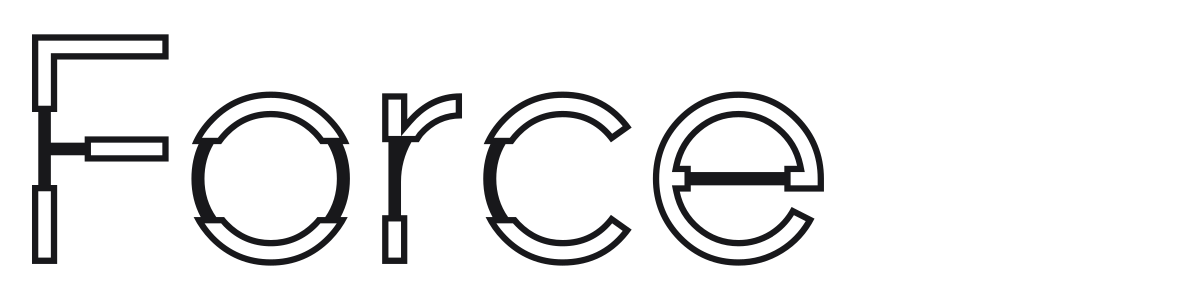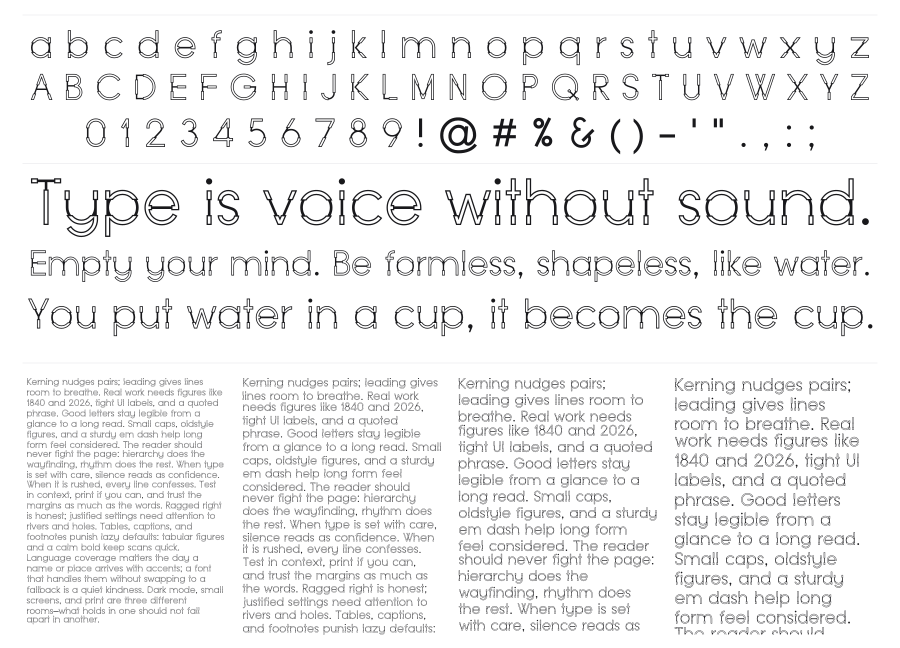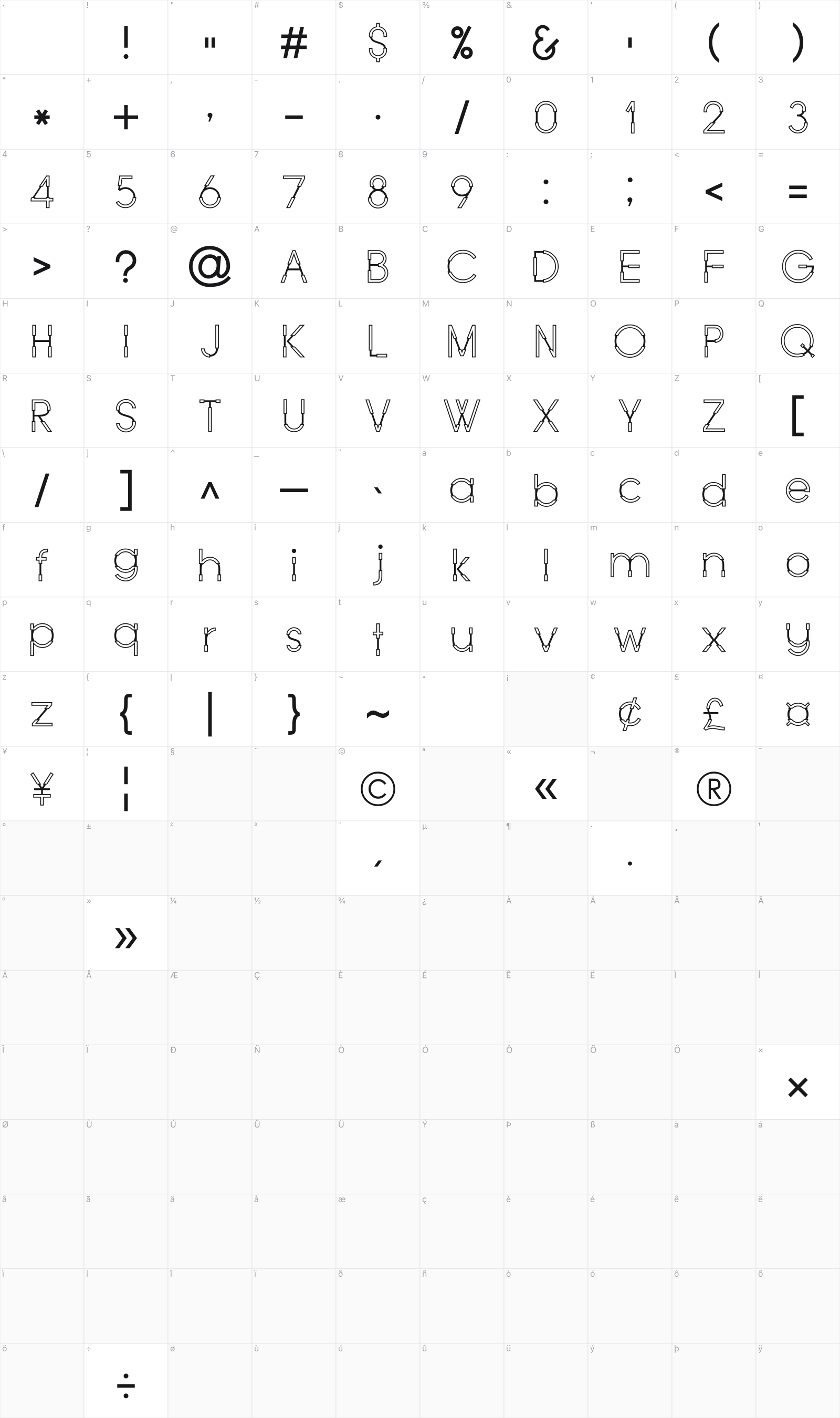
Force
Force is a rounded geometric outline font with a distinctive inline treatment: each stroke is hollow and bisected by a thin interior rule, giving every character an architectural, technical feel. The design reads somewhere between blueprint lettering and retro sci-fi signage. It works at large sizes where the detail of the double-stroke construction can breathe.